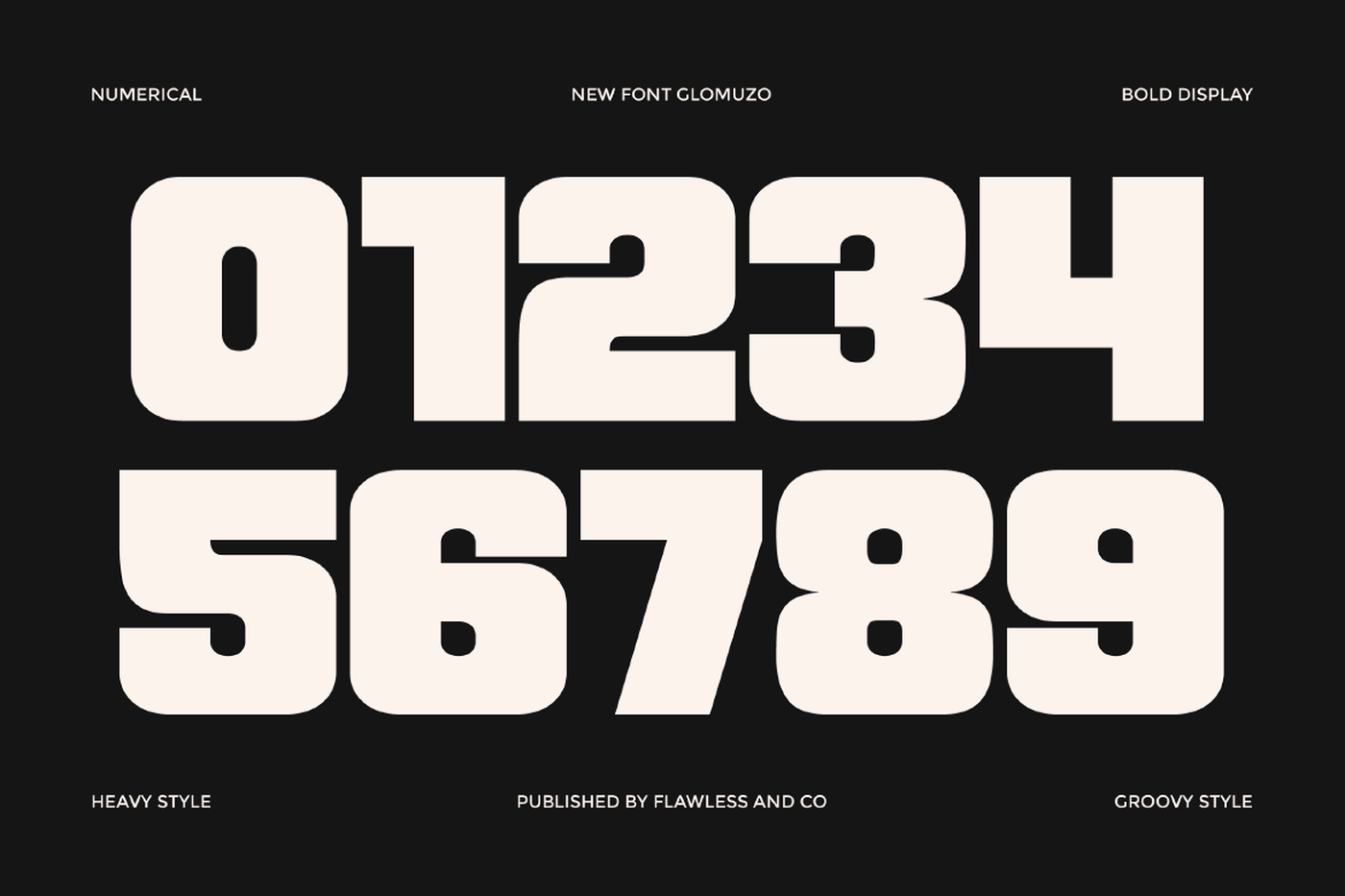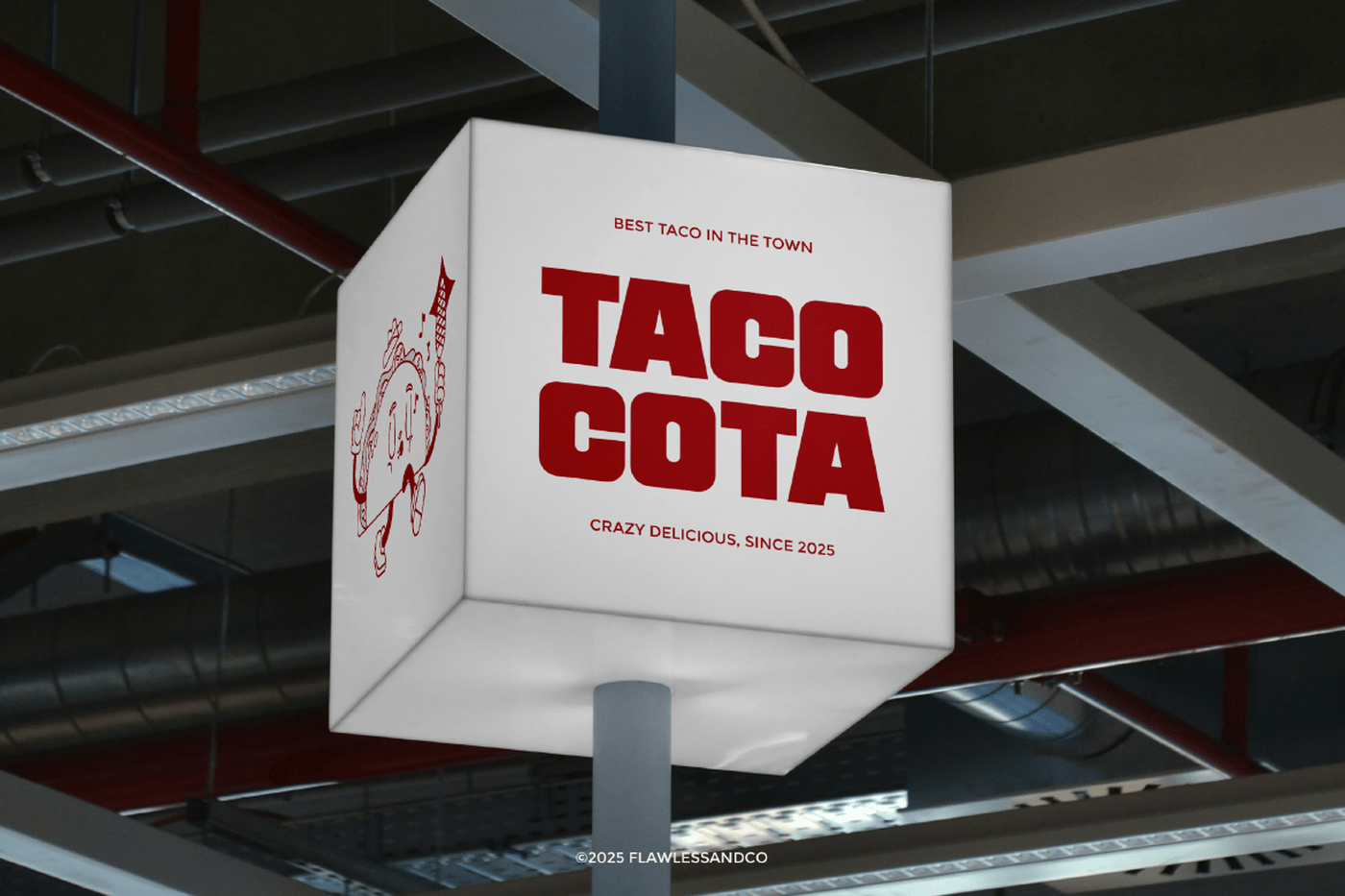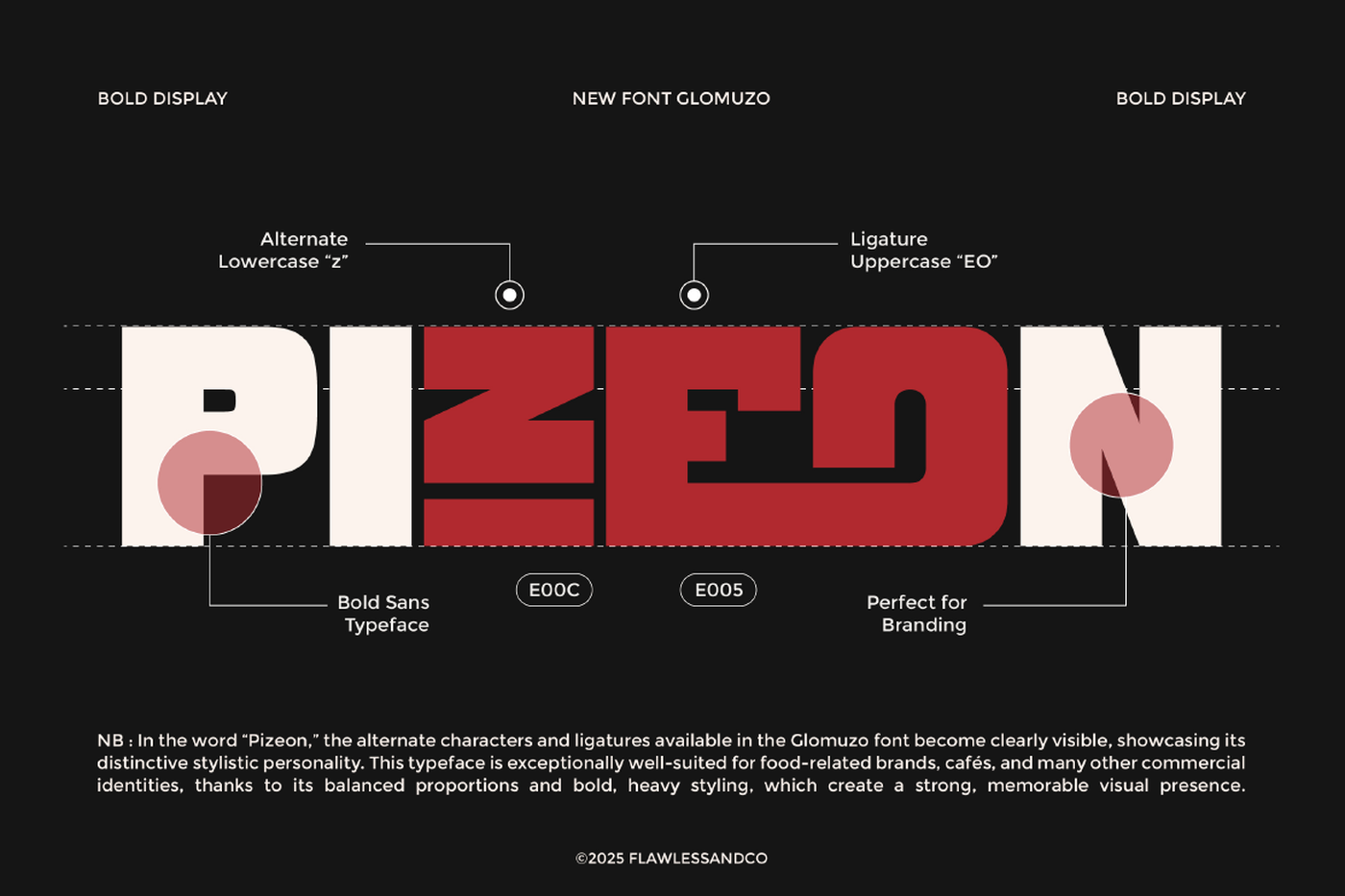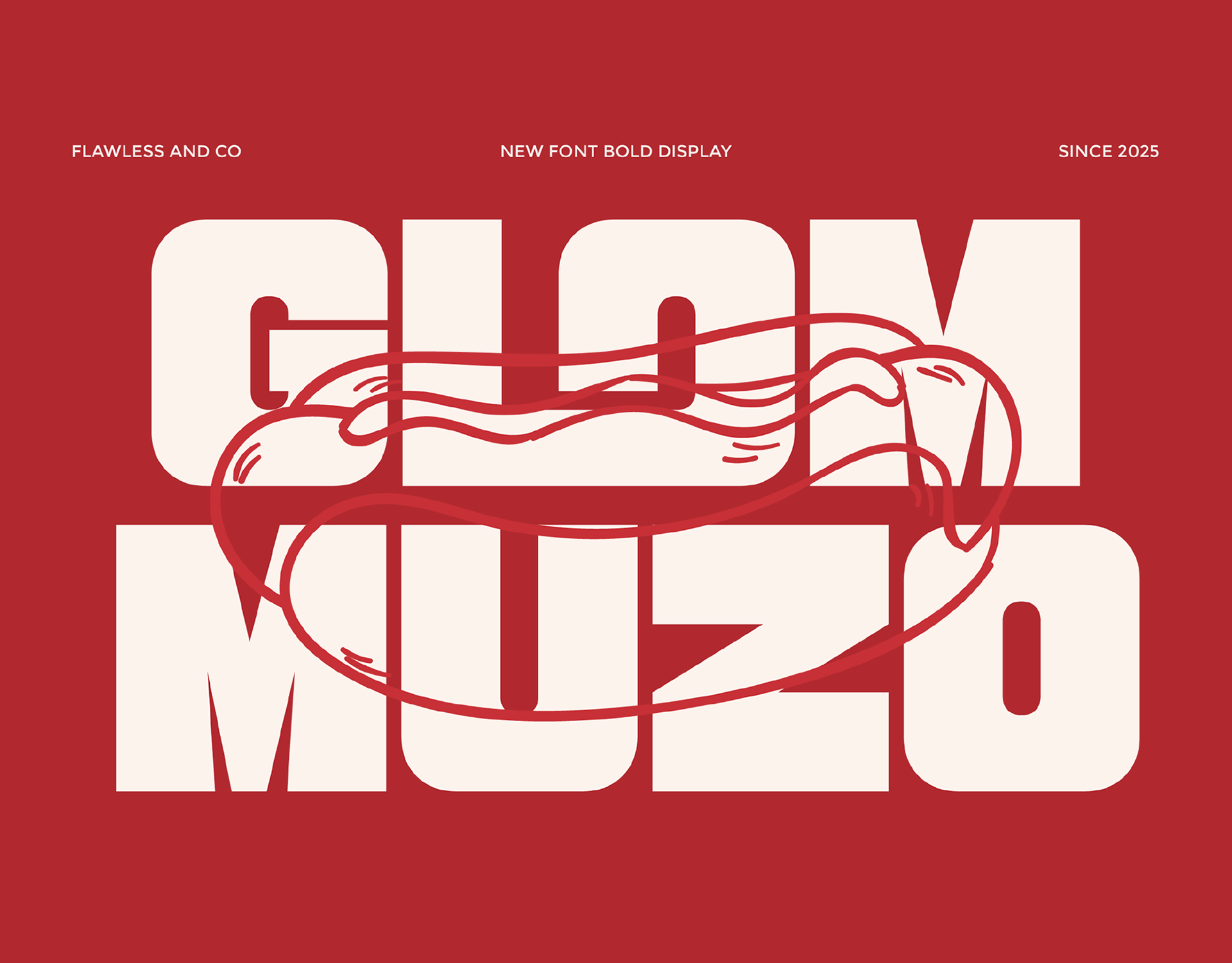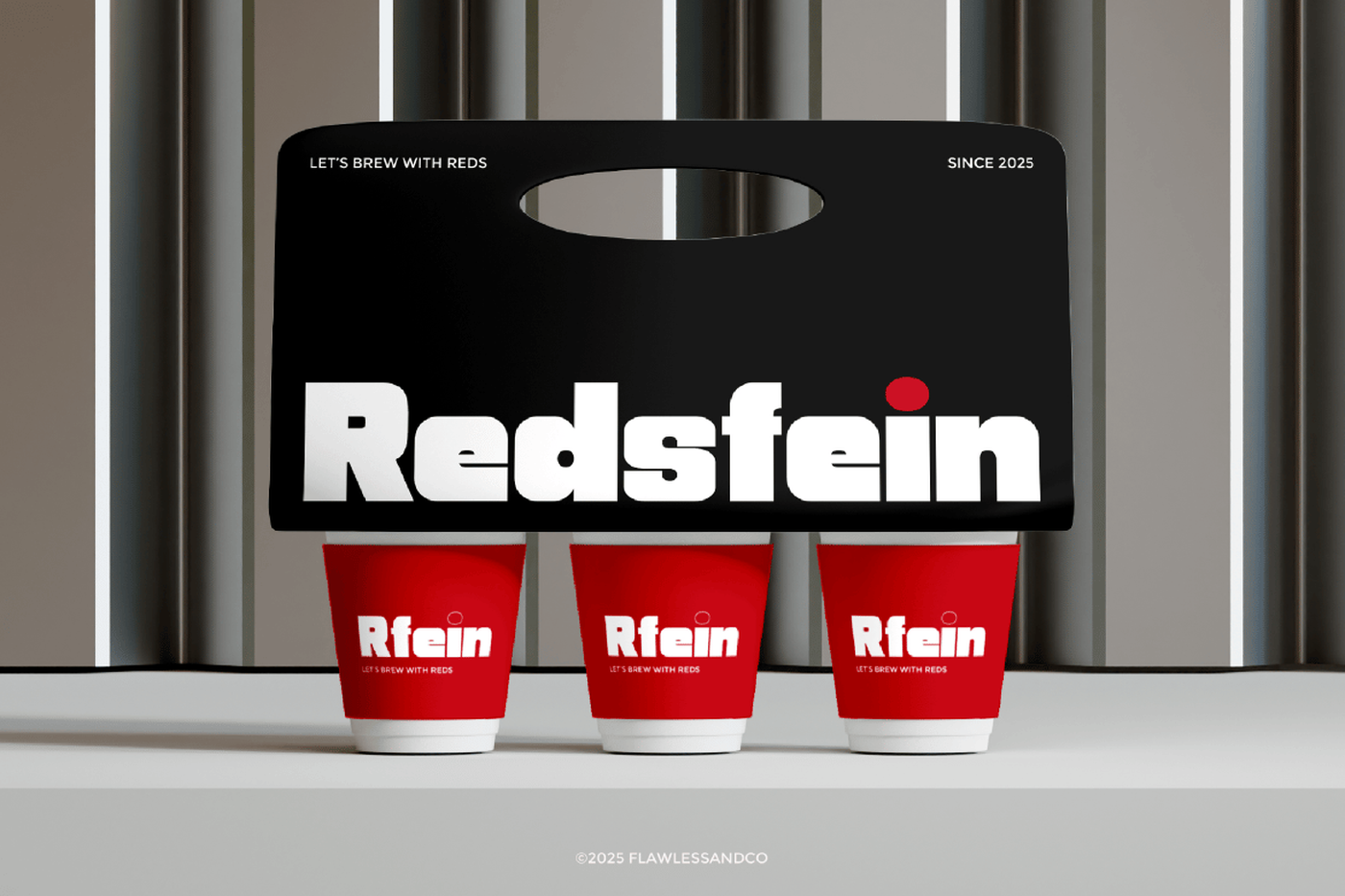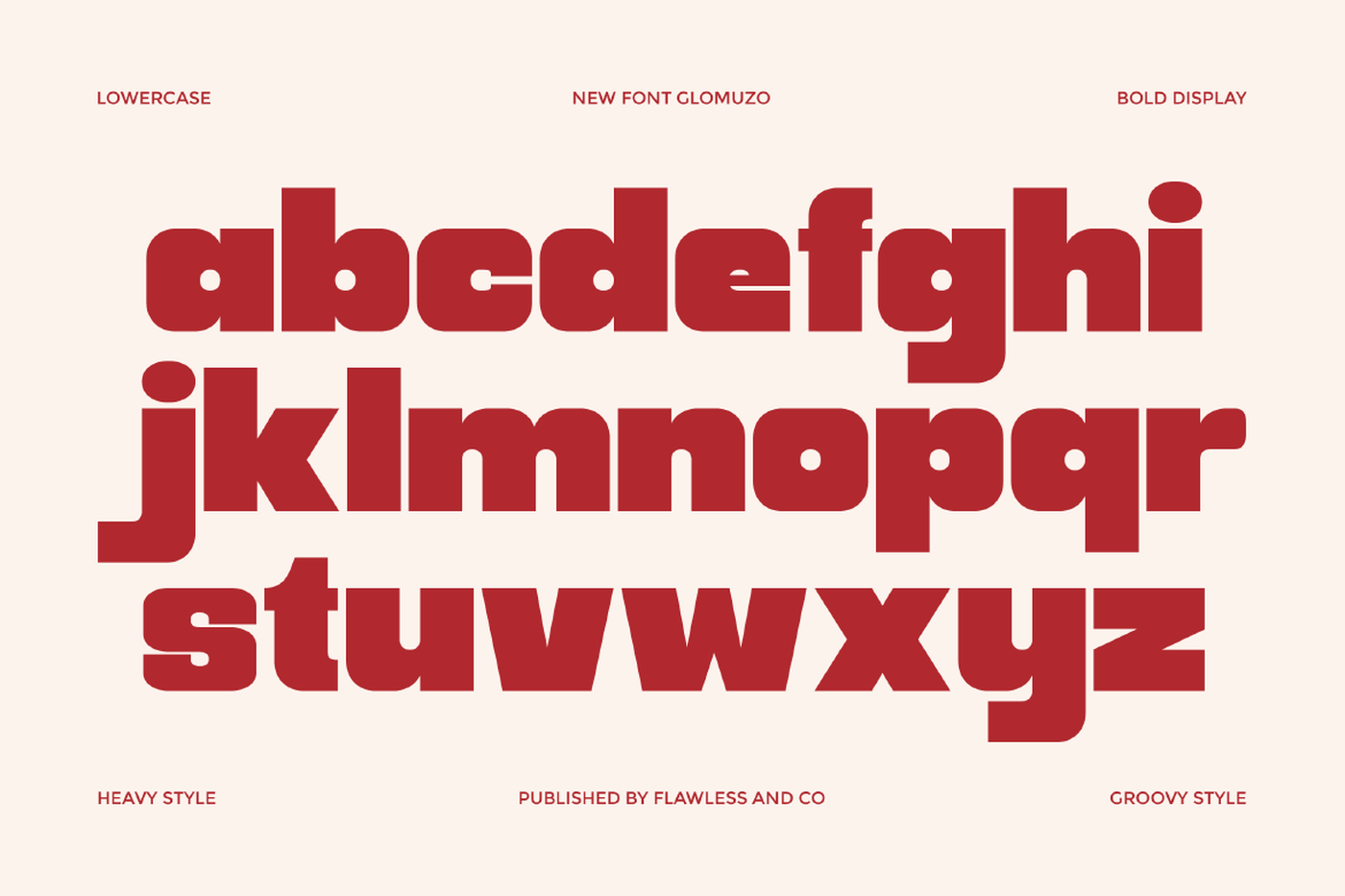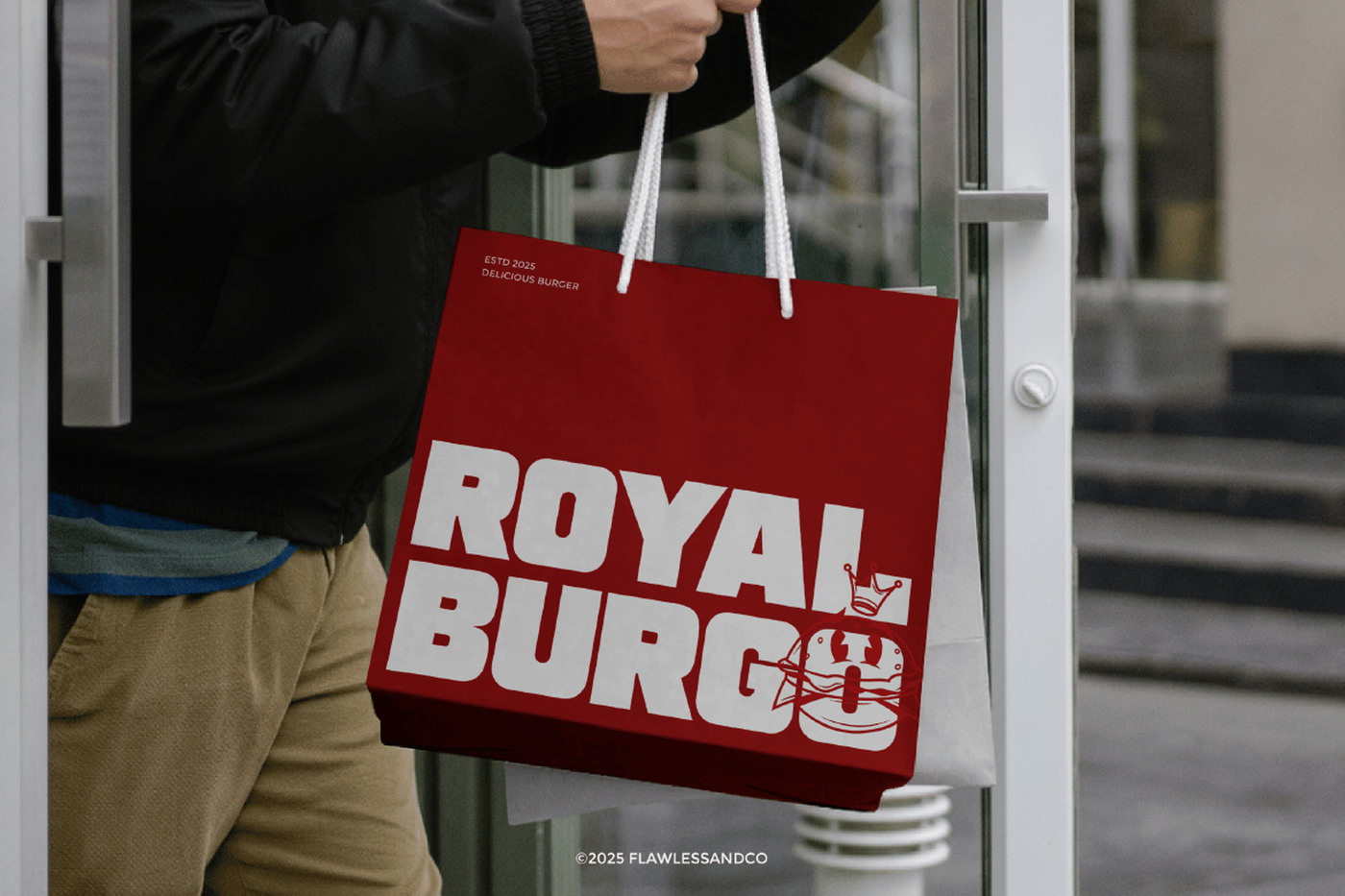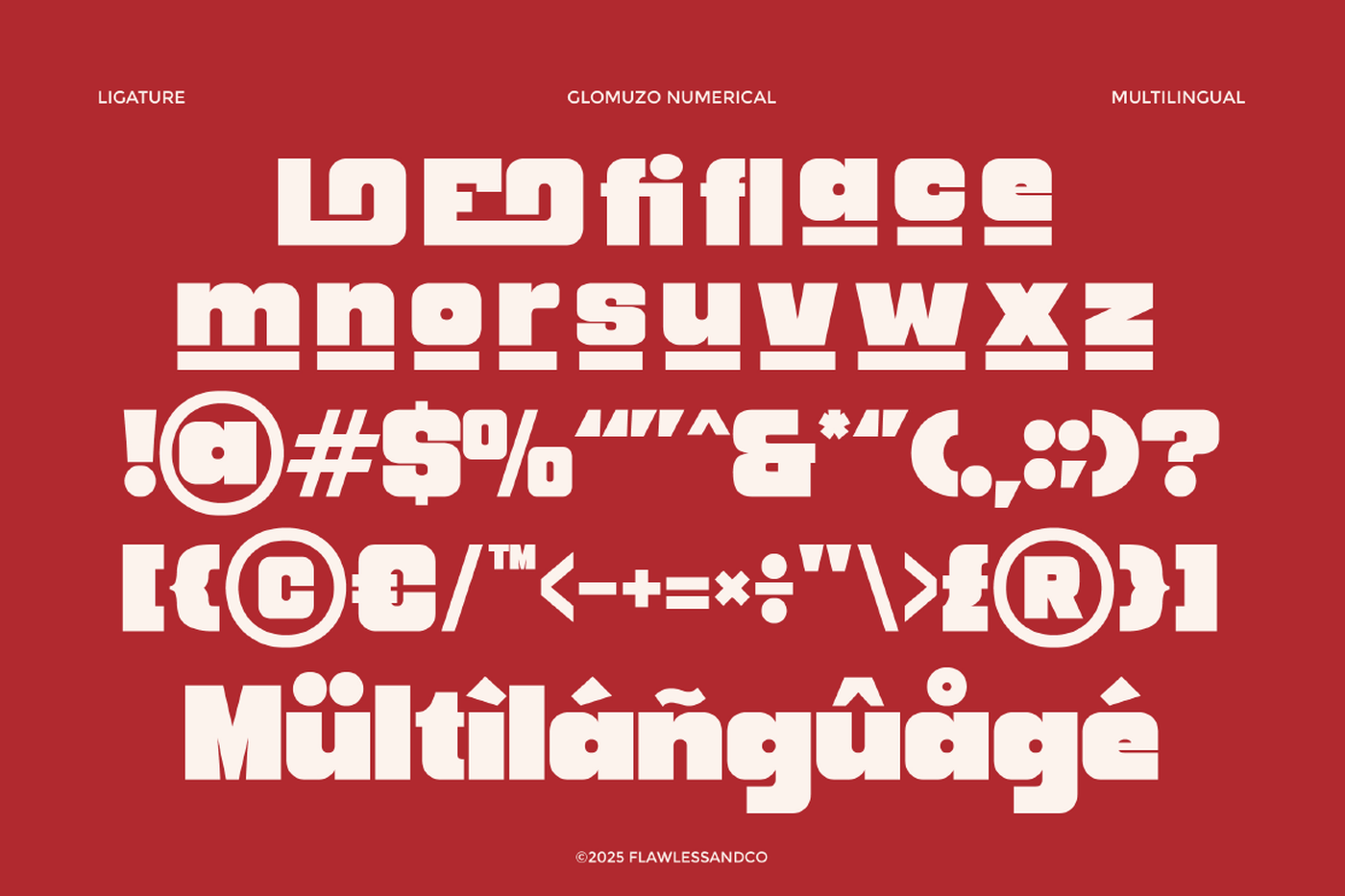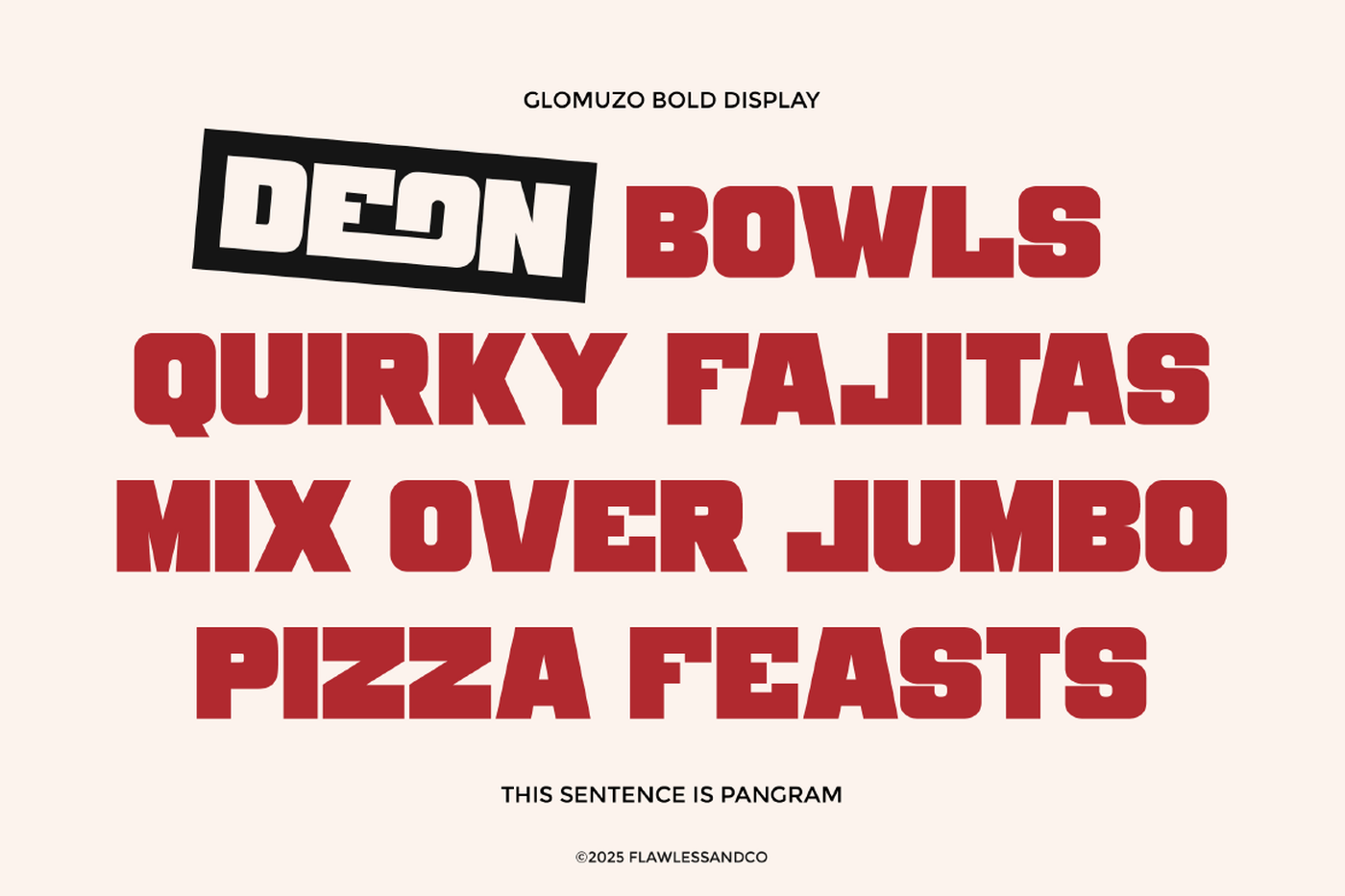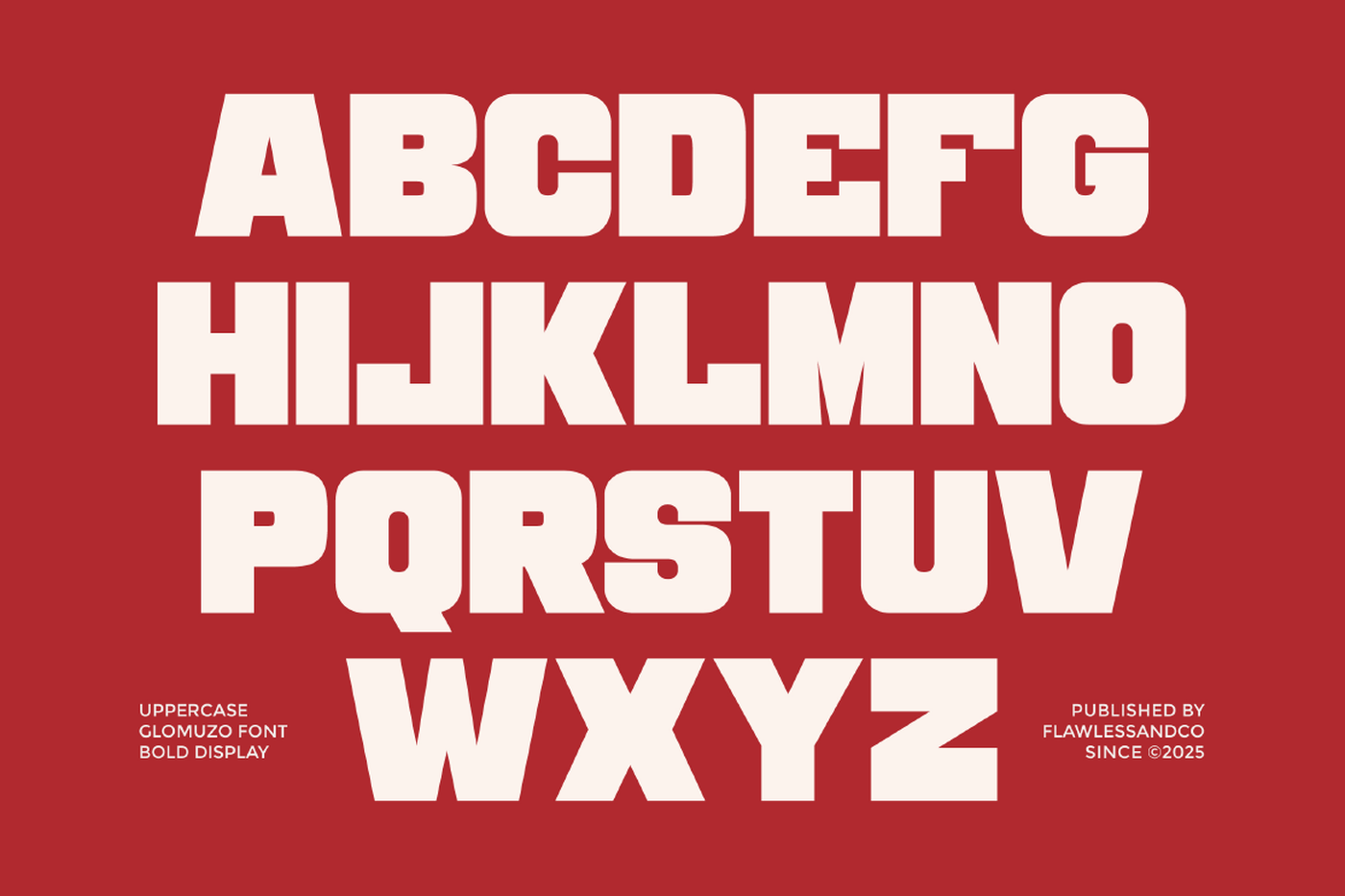
Glommuzo - Bold Display Font
Glommuzo is a bold display font that brings strong visual power and unforgettable character to every design. With thick letterforms, condensed proportions, and a confident modern attitude, Glommuzo is built to command attention instantly. Every stroke embodies impact, energy, and style — making your typography stand out loud and clear. Perfect for titles, branding projects, sports graphics, editorial layouts, packaging, and anything that needs a bold and fearless statement.
Font: Glommuzo